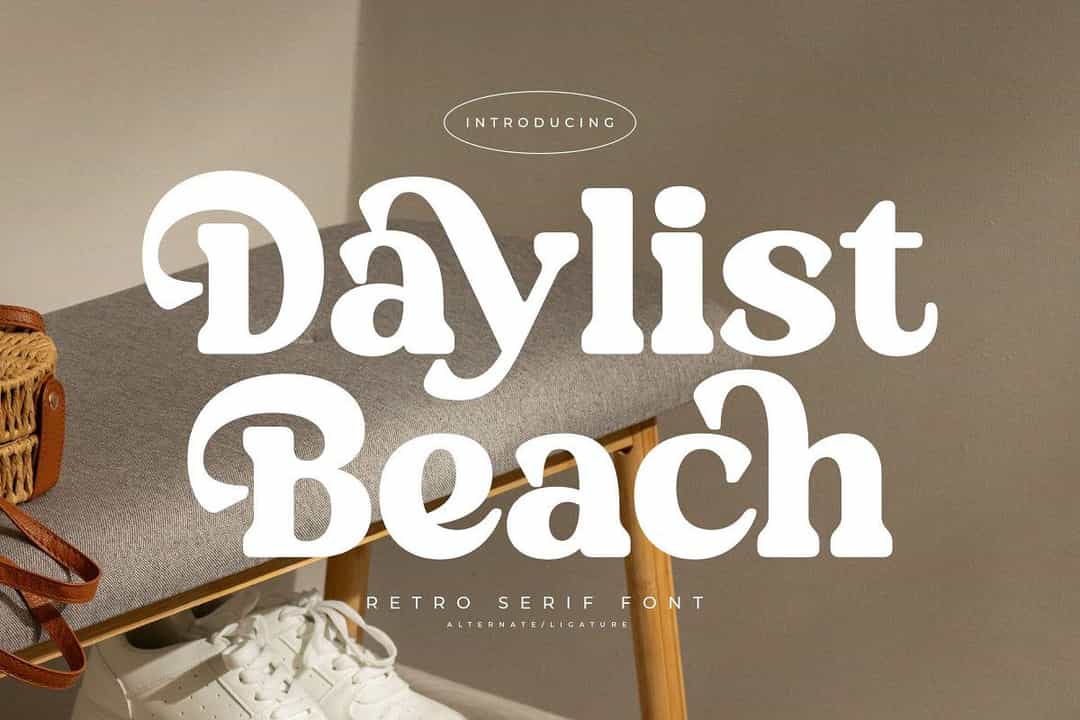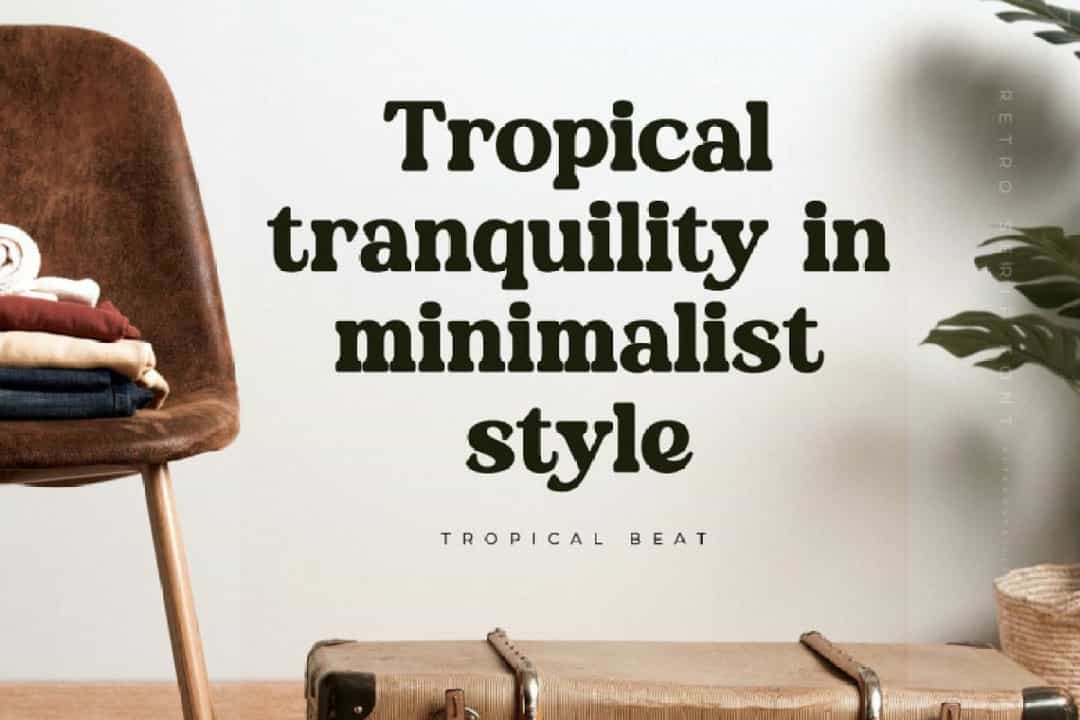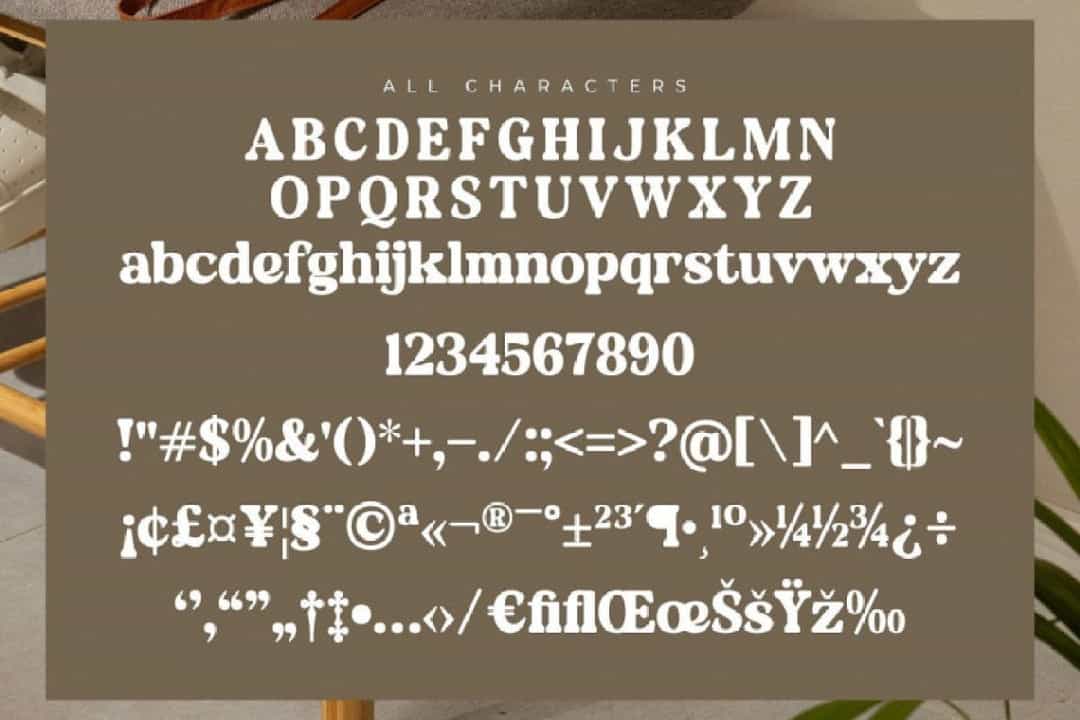
Daylist Beach Retro Serif Font by Letterena that is suitable for all project, such as logos, branding and homeware designs packaging for products and mugs, quotes, bags for shopping T-shirts, book covers and name cards greeting cards, invitation cards, labels and watermarks, photography occasions and other gorgeous and elegant projects that require an Luxury Serif flavor.